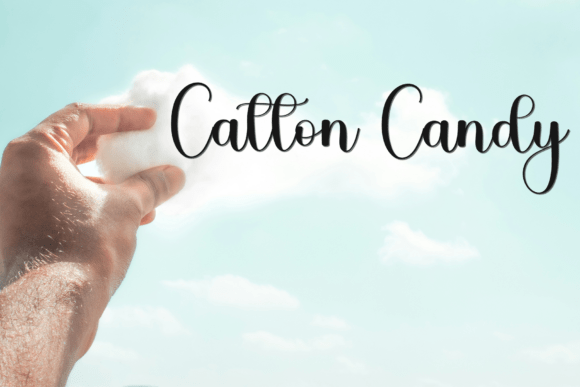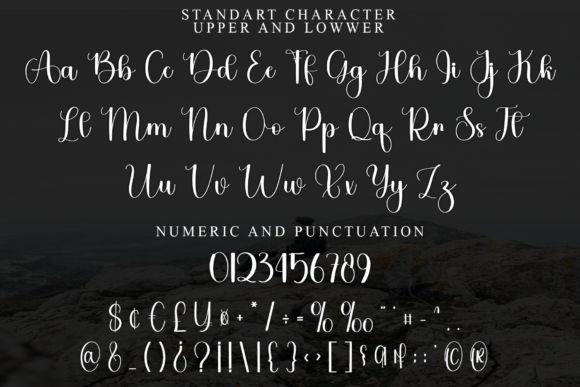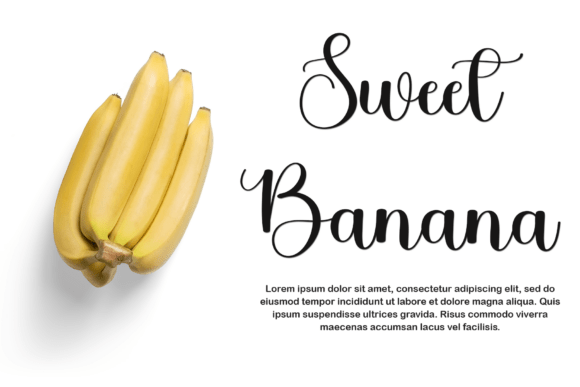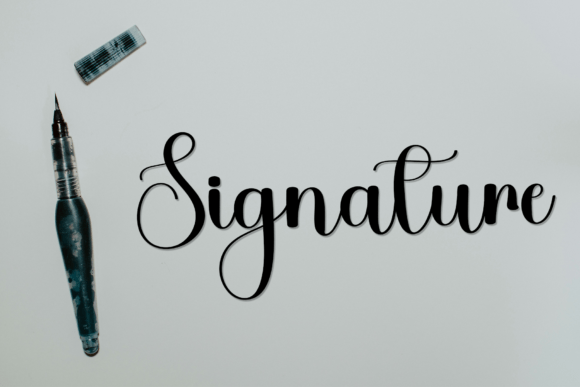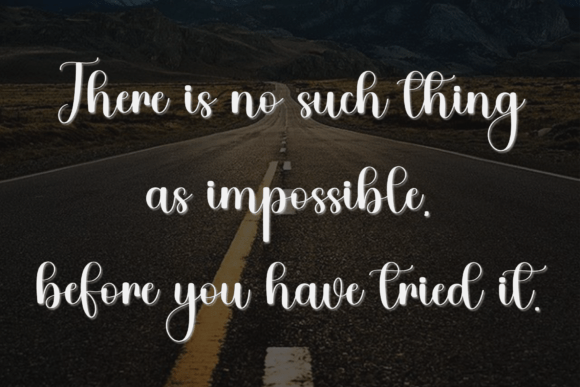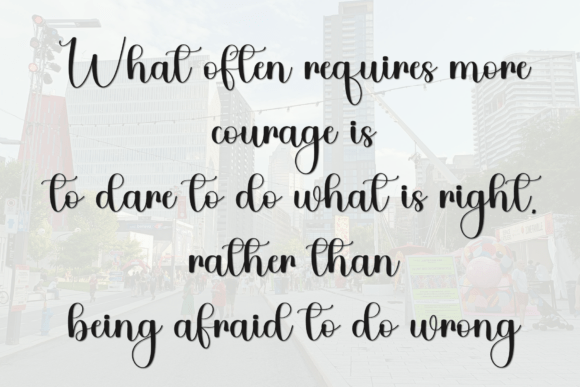
Introducing Beautiful Handmade Font: Elevate Your Designs with a Touch of Elegance
In the world of design, fonts play a crucial role in conveying messages, evoking emotions, and creating a lasting impression. If you’re a designer, crafter, or creative enthusiast looking for a unique and eye-catching font to elevate your projects, look no further than the Beautiful Handmade Font. This stunning font is designed with a soft, distinctive touch that sets it apart from other fonts, making it perfect for a wide range of creative applications.
What Makes Beautiful Handmade Font Stand Out?
The Beautiful Handmade Font boasts a range of characteristics that make it a standout choice for designers and crafters. Its soft, unique touch gives it a special character that is both meaningful and versatile. The font’s distinctive strokes are carefully crafted to create a natural, effortless look that is perfect for a variety of design projects, from crafts and DIY tutorials to branding and advertising materials.
One of the key benefits of the Beautiful Handmade Font is its versatility. With a range of characters and glyphs, this font can be used to create a wide range of designs, from simple and elegant to complex and ornate. Whether you’re creating a logo, brochure, or social media graphic, this font is sure to make your designs shine.
The Beautiful Handmade Font is a dream come true for designers and crafters. Its natural, effortless look makes it perfect for a wide range of creative projects, including:
- Branding and advertising materials: Use the Beautiful Handmade Font to create eye-catching logos, brochures, and social media graphics that will help your brand stand out.
- Crafts and DIY tutorials: Add a personal touch to your crafts and DIY projects with this beautiful, handmade font.
- Stationery and invitations: Create beautiful stationery, invitations, and greeting cards with the Beautiful Handmade Font.
- Web design: Use this font to create stunning website headers, titles, and other design elements.
This font is perfect for use on a variety of products, including:
- Brochures and flyers
- Social media graphics and ads
- Stationery and invitations
- Packaging and labels
Why Choose the Beautiful Handmade Font?
So why choose the Beautiful Handmade Font for your design projects? Here are just a few reasons:
- Unique and eye-catching: This font is sure to make your designs stand out with its soft, unique touch.
- Versatile: With a range of characters and glyphs, this font can be used for a wide range of design projects.
- Natural and effortless look: This font’s natural, effortless look makes it perfect for a wide range of creative projects.